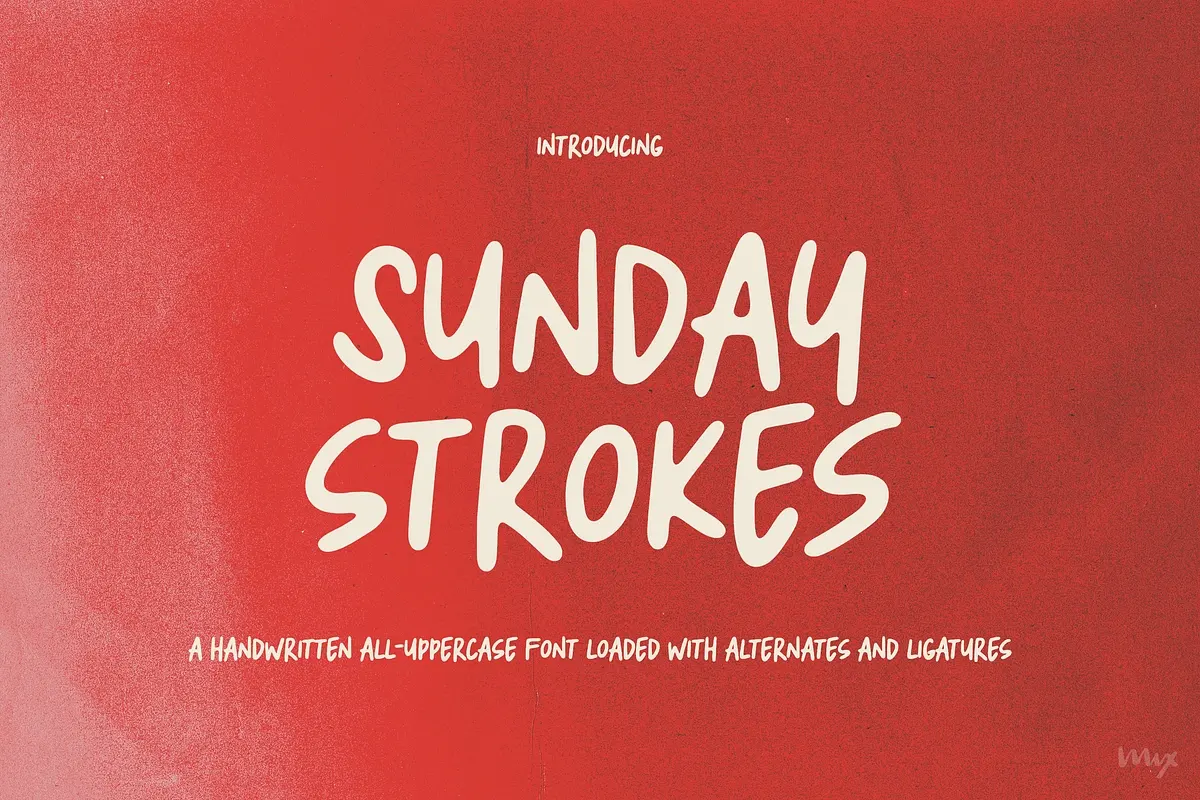
Sunday Strokes — All Uppercase Font Free Download is a bold and artistic typeface that captures the energy of hand-painted lettering in a clean, all-caps format. Please note: you must purchase this font for commercial use, but you can test it through a free download. Designed for high visibility and creative impact, Sunday Strokes is ideal for posters, headlines, branding, packaging, and social media visuals.
Its textured strokes and expressive style give your typography a handcrafted, authentic feel—perfect for projects that need to stand out with personality. Whether you're crafting a bold campaign or a lifestyle logo, Sunday Strokes — All Uppercase Font Free Download brings dynamic flair and artistic edge. Compatible with Adobe Illustrator, Photoshop, Canva, and more, it’s easy to integrate into your workflow. Download it now for personal use and make your message pop with confident, brush-style typography.